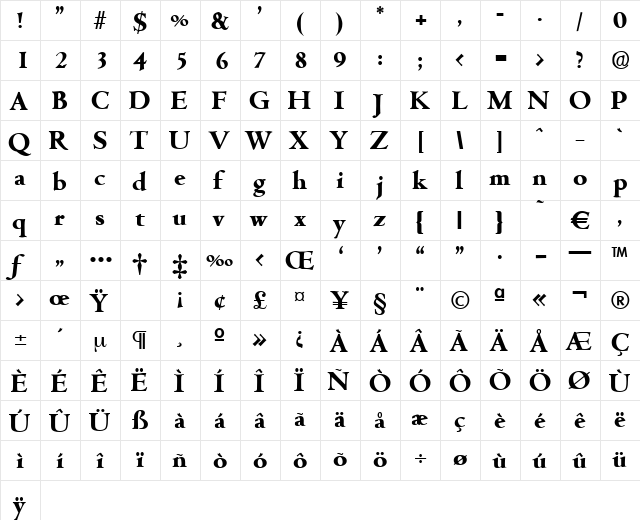
Cambridge-Bold Regular Font Preview
Cambridge-Bold Regular
Design Context for Cambridge-Bold Typeface
Cambridge-Bold offers clean, dependable letterforms without strong stylistic allegiance, making it a practical choice for designers who need flexibility. The heavy weight commands attention and anchors typographic hierarchies.